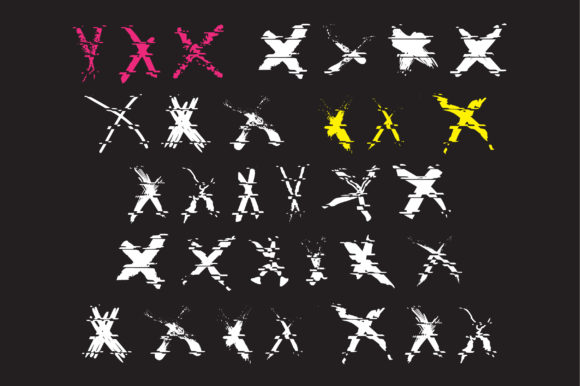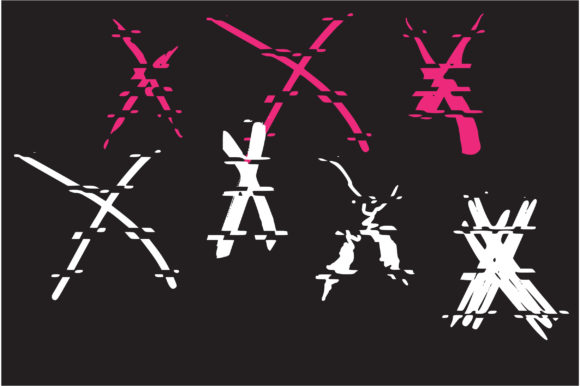
Introduction to Glitch Crosses Font
Glitch Crosses is a cool, uniquely shaped, pixelated dingbats font.
Add a distorted and trendy touch to your designs with this unusual font .
Key Features of Glitch Crosses Font